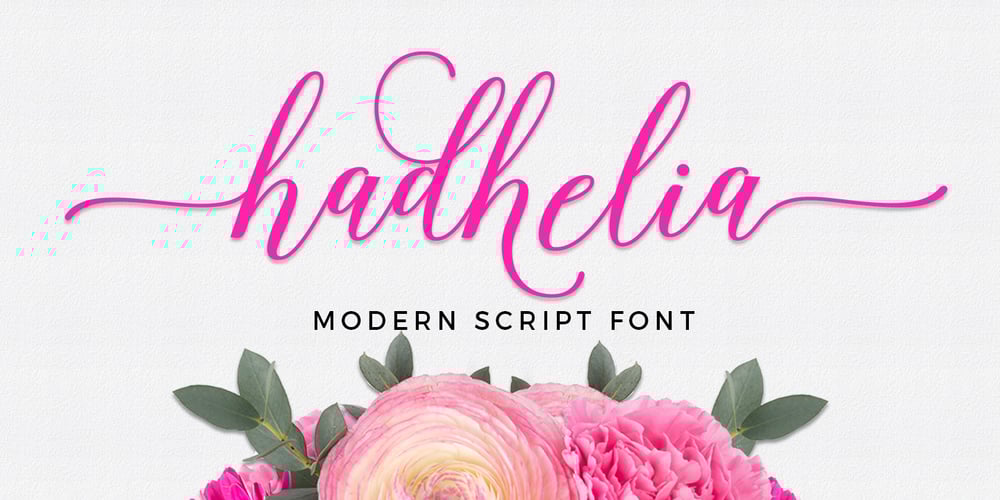
Hadhelia Script
Hadhelia Script font
Hadhelia Script Font Family was designed by Akmal Yusar and published by Picatype. Hadhelia Script contains 1 styles and family package options. Hadhelia Script is modern calligraphy design. This font is casual and pretty with swashes. Can be used for various purposes. such as logo, product packaging, wedding invitations, branding, headlines, signage, labels, signature, book covers, posters, quotes and more. Hadhelia Script features OpenType stylistic alternates, ligatures and International support for most Western Languages. To enable the OpenType Stylistic alternates, you need a program that supports OpenType features such as Adobe Illustrator CS, Adobe Indesign & CorelDraw X6-X7, Microsoft Word 2010 or later versions. If you need help or have any questions, please let me know. I’m happy to help. Thanks & Happy Designing!